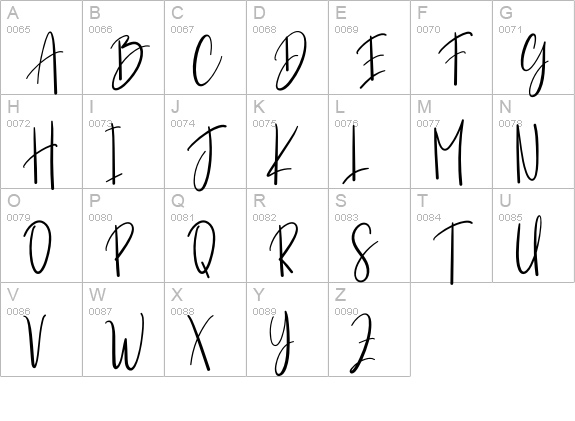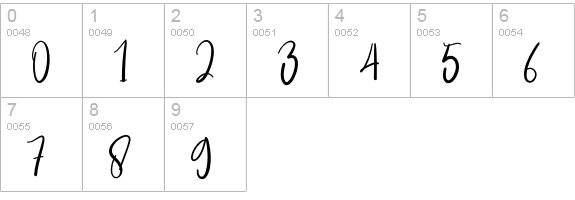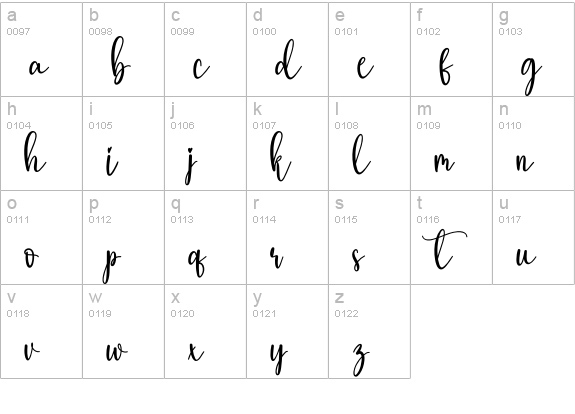
Wedding2 Font Details
Wedding2 is a free for personal use font in the Script > Handwritten category, designed by scratchones. It has been downloaded 84 times and is available for Windows, Mac and Linux.
Introducing Wedding2 font, a stunning and elegant typeface designed for all your special occasions. This enchanting font exudes romance and sophistication, making it perfect for wedding invitations, love letters, and more. With its delicate curves and graceful flourishes, Wedding2 font adds a touch of timeless beauty to any project.